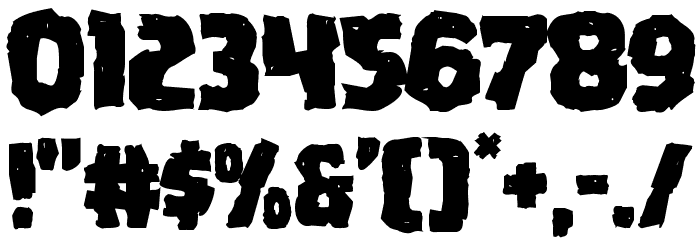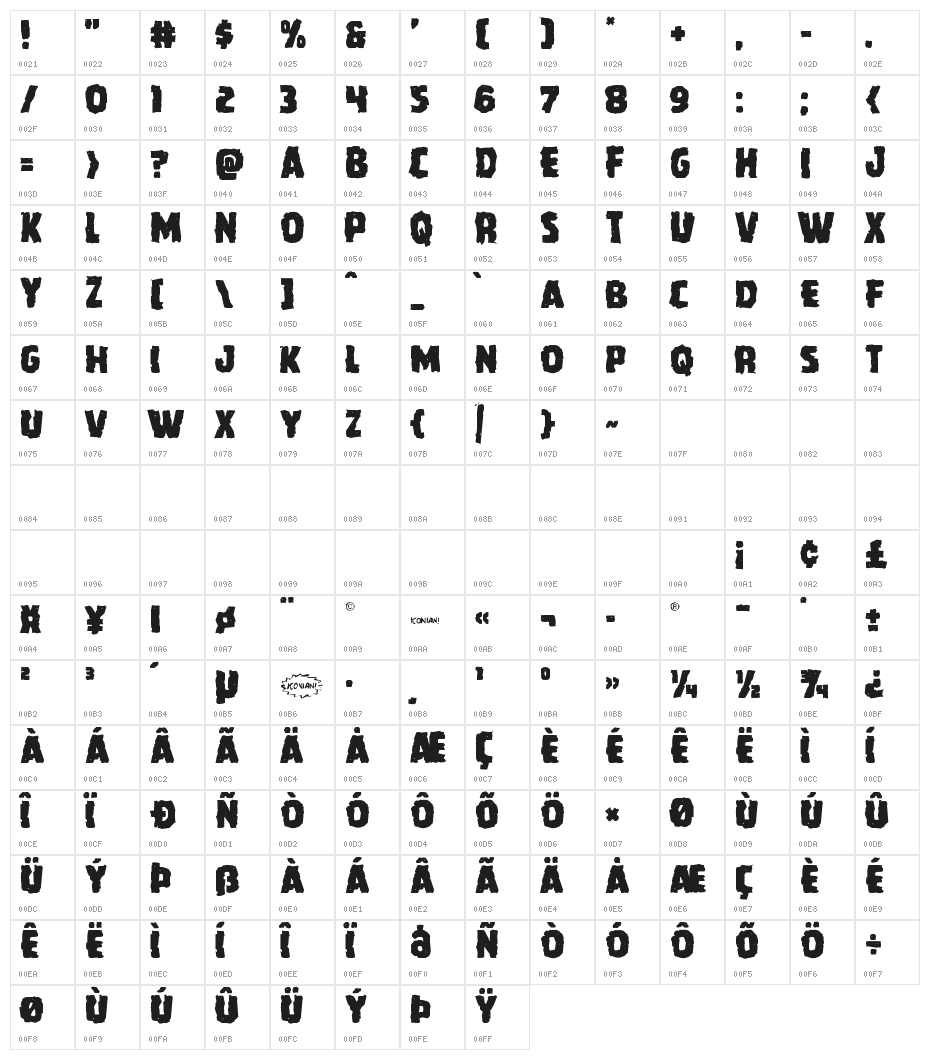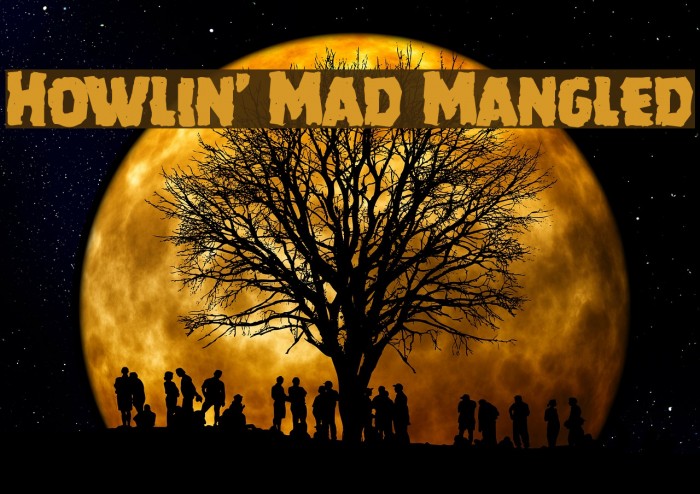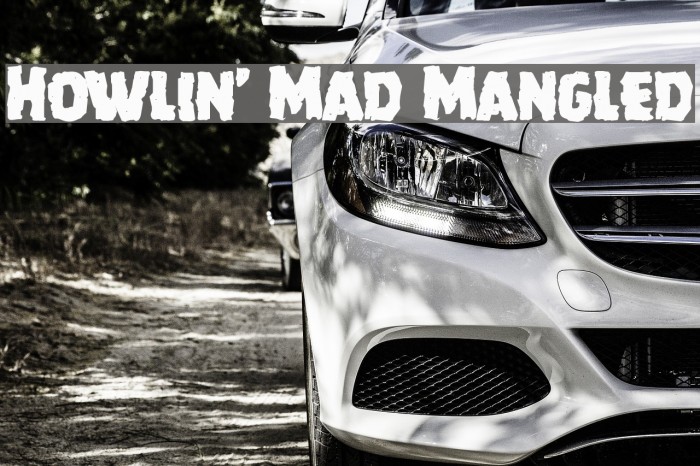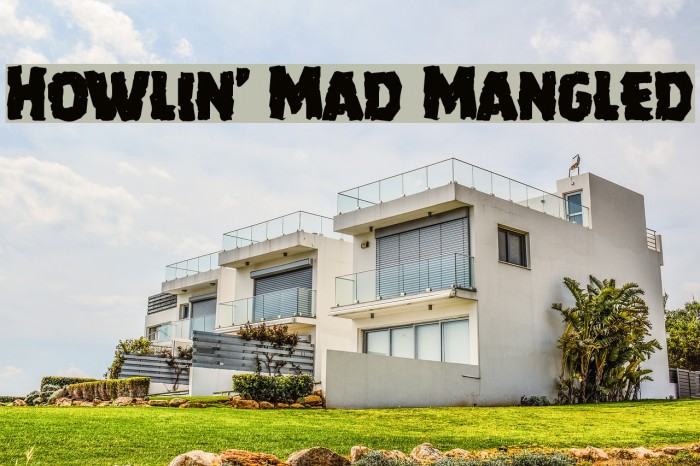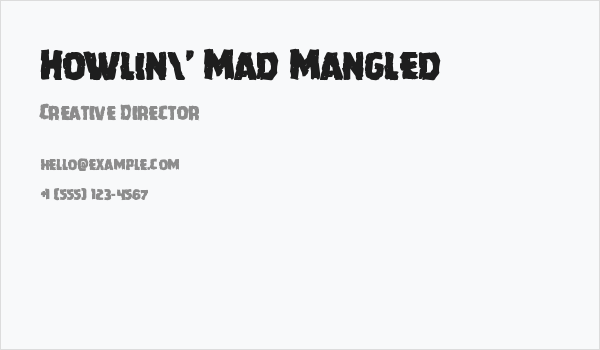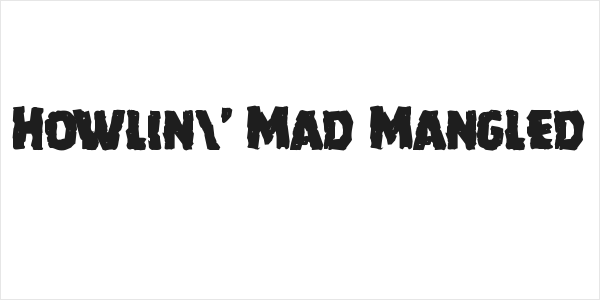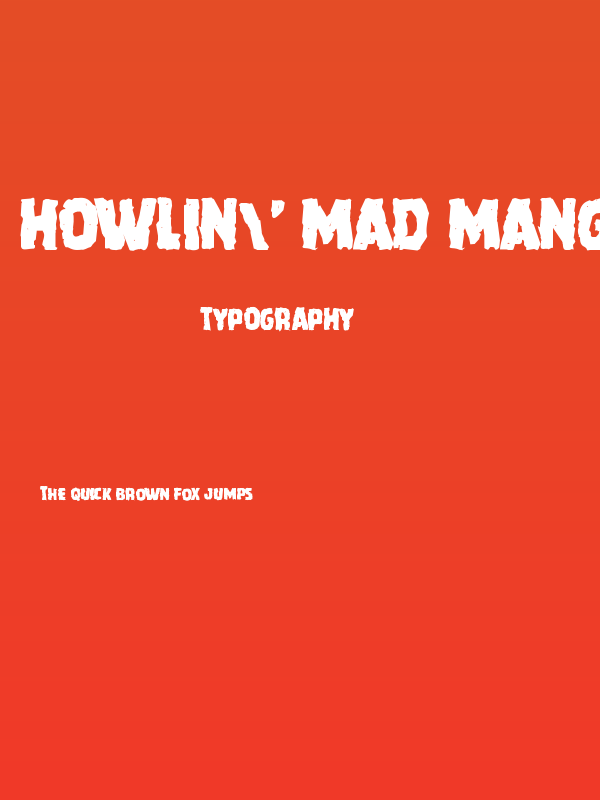
Howlin' Mad Mangled Font
Howlin' Mad Mangled Description
This font features a rugged and distressed appearance, with each character appearing as if it has been roughly carved or torn from a surface. The bold, uneven strokes give it a chaotic and energetic feel, making it stand out with a raw, hand-crafted aesthetic. The characters are irregular in shape, adding to the font's unique and rebellious style. The overall look is bold and impactful, perfect for grabbing attention and conveying a sense of urgency or intensity.